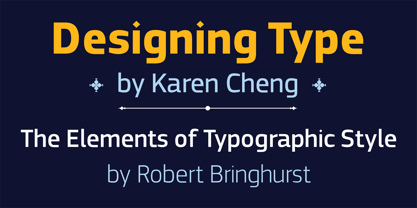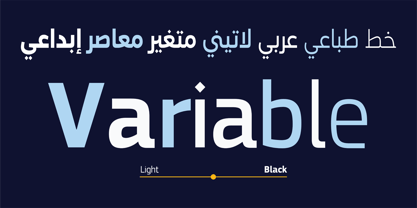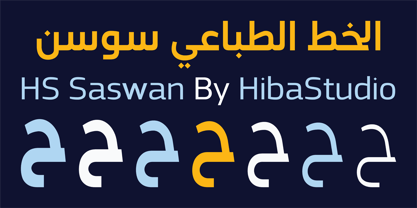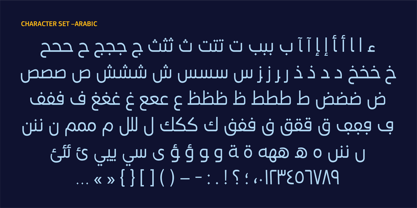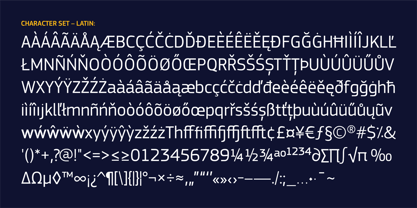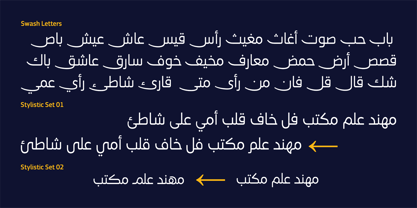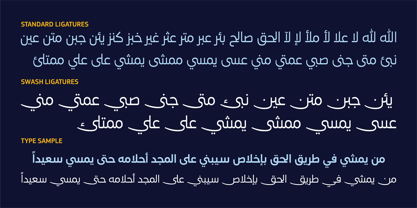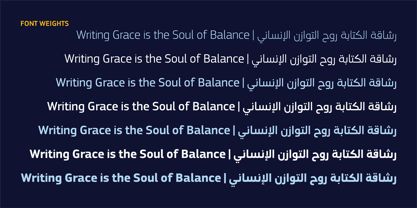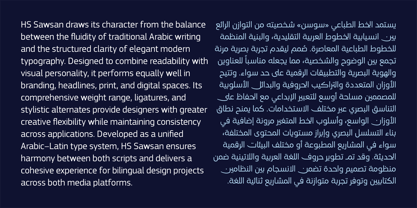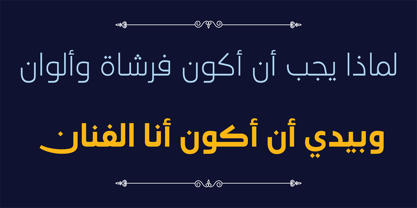
HS Sawsan
by Hiba Studio
The HS Sawsan Font Family was designed by Hasan Abu Afash and published by Hiba Studio. HS Sawsan contains 8 styles and family package options. More about this family
HS Sawsan is a contemporary humanist Arabic typeface rooted in the meeting point of Naskh tradition and modern Kufi sensibility. Where most Arabic typefaces lean toward one or the other, Sawsan holds both, bringing together the fluidity of calligraphic forms and the clarity of contemporary design in a single cohesive system.
The family spans seven weights from Light to Black and is available as a Variable Font with a weight axis, offering designers smooth, precise control over typographic hierarchy across both print and screen.
From the beginning, the Latin character set was developed in direct conversation with the Arabic, sharing the same visual rhythm, proportions, and weight relationships. The result is a genuinely bilingual typeface where both scripts feel like two expressions of one voice, not two fonts forced together. This makes Sawsan a strong foundation for brand identities, editorial systems, and digital products that operate across languages without losing visual consistency.
Advanced OpenType features include Ligatures, Swash Alternates, Stylistic Sets (ss01–ss02), Contextual Alternates, Positional Forms, and Kerning, giving designers meaningful room for expression and customization.
Whether the project calls for a confident headline, a refined brand mark, or a complete bilingual identity system, HS Sawsan brings warmth, precision, and a distinctly contemporary Arabic presence.
Designers: Hasan Abu Afash
Foundry: Hiba Studio